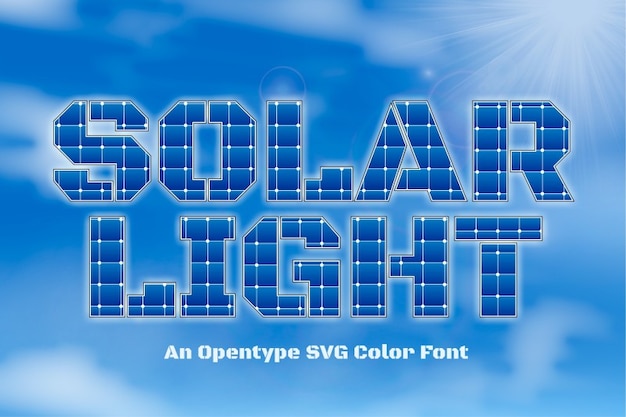
Solar Light
Solar Light Font
Illuminate your designs with 'Solar Light' font—an industrial marvel inspired by solar panels. Geometrical precision meets sustainable elegance, as each character harnesses the power of clean lines. Infuse your text with the energy of 'Solar Light,' merging form and function in a typographic symphony.